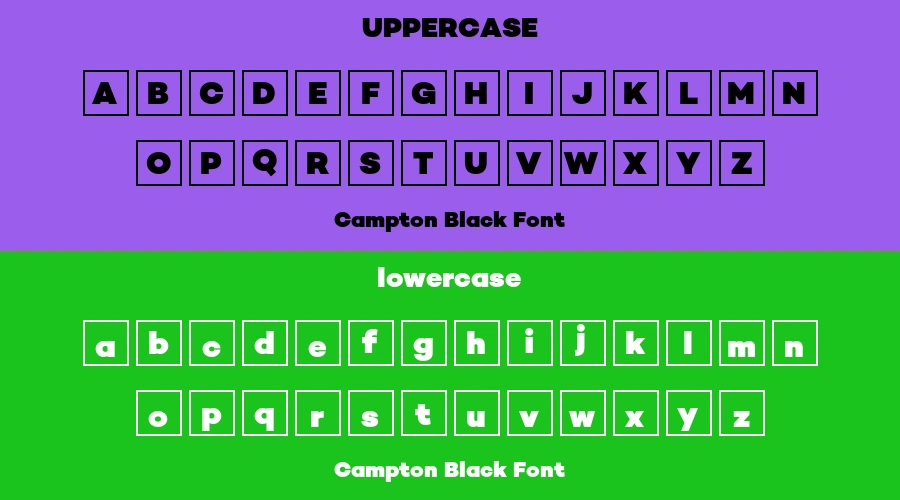
About Campton Black Font
Campton Black Font embodies typographic excellence through its masterful combination of circular bowls and durability. Created for brand identities, this typeface delivers exceptional functionality and technical sophistication across all applications. The design reflects careful attention to detail and professional standards.
Advanced capabilities include distinctive artistic freedom and versatile decorative sets, giving designers creative control. When used in artistic statements, Campton Black Font exhibits remarkable file optimization. The harmonious balance between ascender height and educational suitability sets this typeface apart.